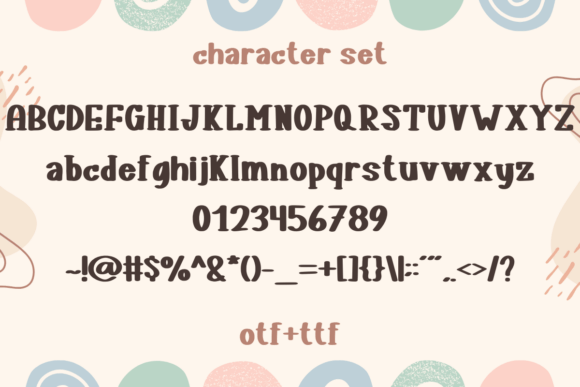
Introducing Classic Joyful Font: The Perfect Choice for Playful and Heartwarming Designs
In the world of typography, fonts play a crucial role in conveying emotions and setting the tone for a brand or design. When it comes to creating joyful and playful designs, the font choice is paramount. This is where Classic Joyful Font comes in – a handwritten-style display font that exudes positivity and warmth. With its quirky serifs and handcrafted flair, Classic Joyful is the perfect choice for greeting cards, baby-themed designs, quotes, and playful branding where personality and fun matter most.
The Story Behind Classic Joyful Font
Classic Joyful Font is a carefully crafted typeface designed to bring a sense of happiness and friendliness to any design project. Its unique blend of quirky serifs and handcrafted elements gives it a distinctive look that sets it apart from other fonts. The font’s design is inspired by the joy of handwriting and the warmth of human connection. Each letter is meticulously drawn to convey a sense of playfulness and approachability, making it perfect for designs that require a personal touch.
The font’s creator aimed to design a typeface that would be versatile enough to be used in various design projects, from greeting cards and baby-themed designs to quotes and playful branding. With Classic Joyful Font, designers can add a touch of personality and whimsy to their work, making it more engaging and memorable.
Key Features of Classic Joyful Font
So, what makes Classic Joyful Font so special? Here are some of its key features:
- Handwritten-style display font: Classic Joyful Font has a unique, handcrafted feel that gives it a personal touch.
- Quirky serifs: The font’s serifs are playful and irregular, adding to its whimsical charm.
- Handcrafted flair: Each letter is carefully drawn to convey a sense of warmth and friendliness.
- Versatile: Classic Joyful Font can be used in a variety of design projects, from greeting cards and baby-themed designs to quotes and playful branding.
Use Cases for Classic Joyful Font
Classic Joyful Font is a versatile typeface that can be used in a wide range of design projects. Here are some use cases where the font truly shines:
Greeting Cards
Classic Joyful Font is perfect for creating playful and heartwarming greeting cards for special occasions like birthdays, weddings, and holidays. The font’s handwritten-style and quirky serifs add a personal touch to your cards, making them more meaningful and memorable.
Baby-Themed Designs
The font’s playful and whimsical nature makes it an excellent choice for baby-themed designs, such as nursery decor, baby shower invitations, and children’s book illustrations. Classic Joyful Font adds a touch of warmth and friendliness to your designs, making them more appealing to parents and kids alike.
Quotes and Typography
Classic Joyful Font is also great for creating inspirational quotes, typographic posters, and social media graphics. The font’s handcrafted flair and quirky serifs add a touch of personality to your quotes, making them more engaging and shareable.
Playful Branding
For brands that want to convey a sense of fun and playfulness, Classic Joyful Font is an excellent choice. The font’s unique and whimsical nature makes it perfect for logos, packaging, and advertising materials that require a touch of personality and whimsy.
Tips for Using Classic Joyful Font
To get the most out of Classic Joyful Font, here are some tips to keep in mind:
- Use it for headlines and titles: Classic Joyful Font is perfect for headlines and titles, where its playful and whimsical nature can shine.
- Pair it with neutral fonts: For body text, pair Classic Joyful Font with neutral fonts like Arial, Helvetica, or Open Sans to create a nice contrast.
- Experiment with colors: Classic Joyful Font looks great in bright and pastel colors, so don’t be afraid to experiment and find the perfect color scheme for your design.
- Use it sparingly: While Classic Joyful Font is a beautiful font, it’s best used sparingly to avoid overwhelming the reader. Use it for key messages or highlights, and stick to a neutral font for body text.
In conclusion, Classic Joyful Font is a unique and versatile typeface that can add a touch of personality and whimsy to any design project. With its handwritten-style display font, quirky serifs, and handcrafted flair, it’s perfect for greeting cards, baby-themed designs, quotes, and playful branding. By following the tips outlined above, you can get the most out of Classic Joyful Font and create designs that are both fun and memorable.